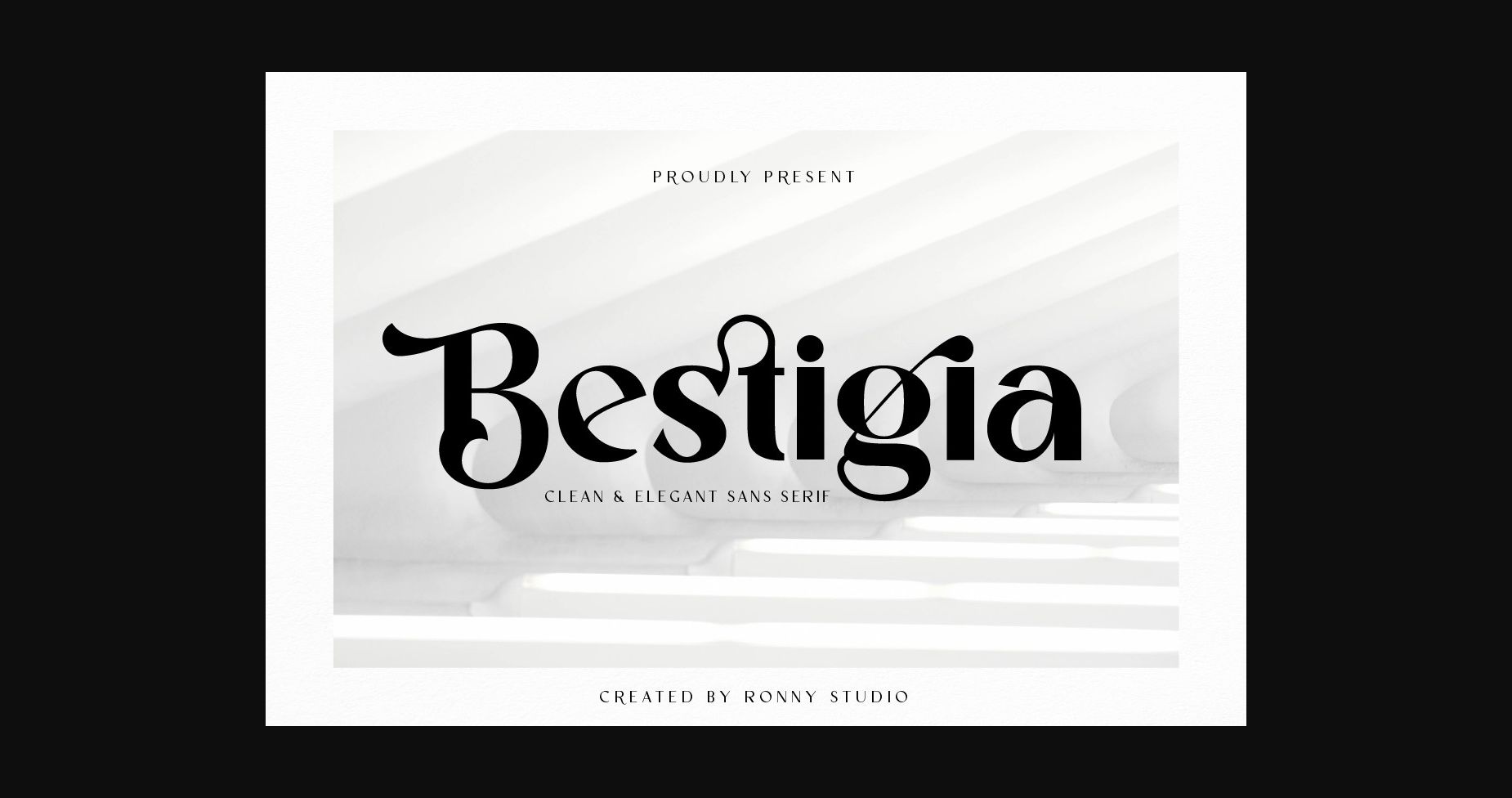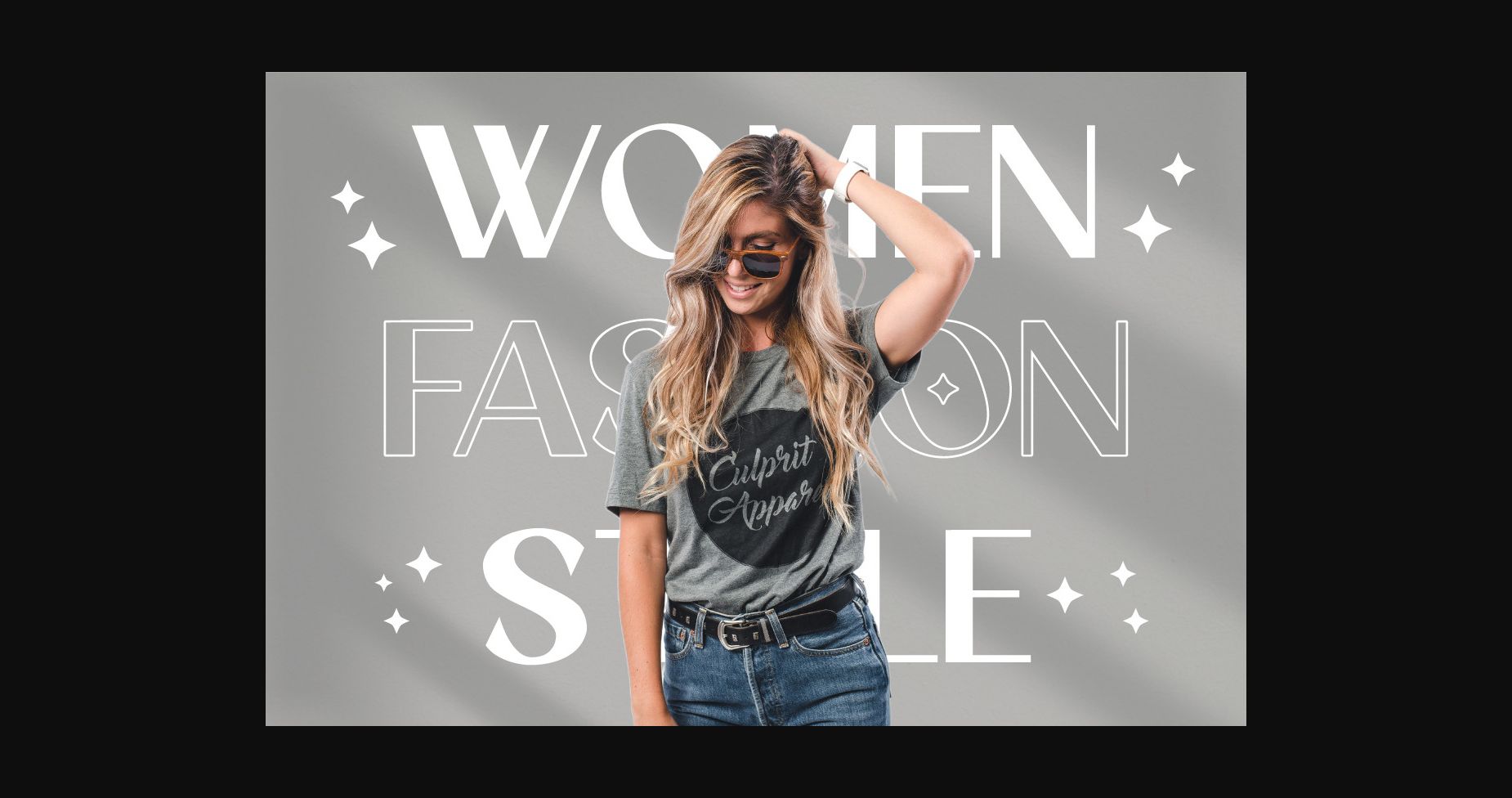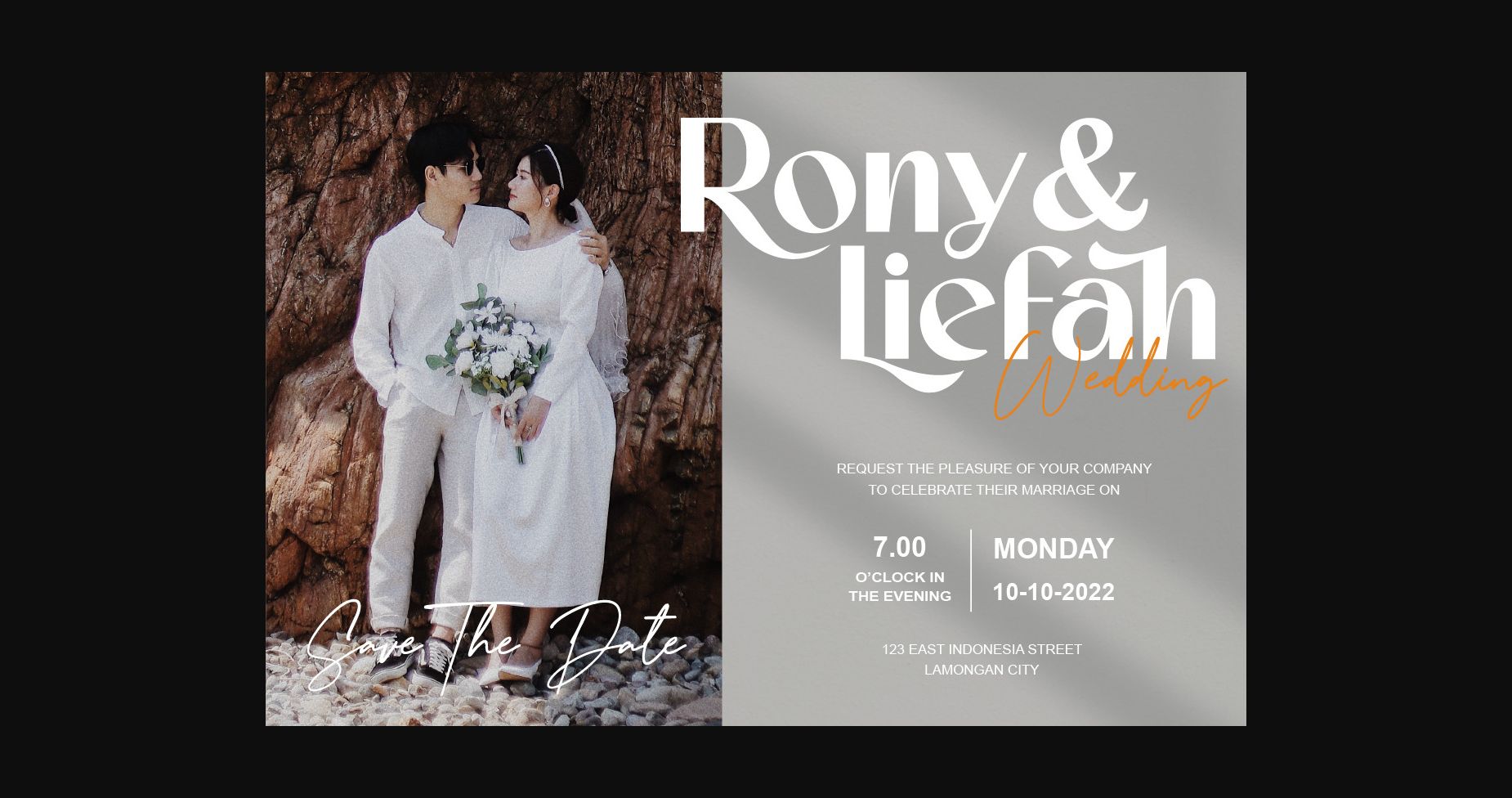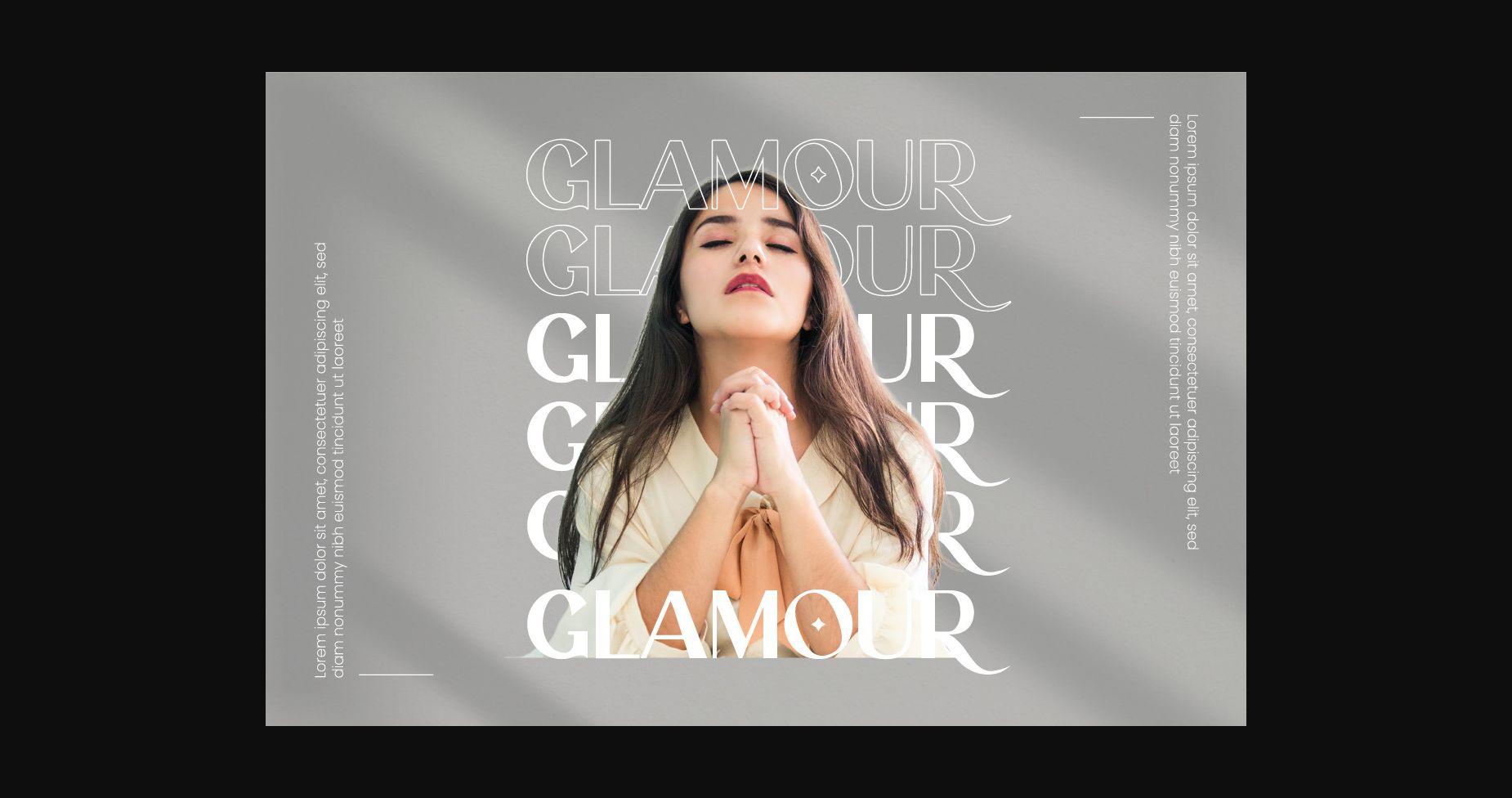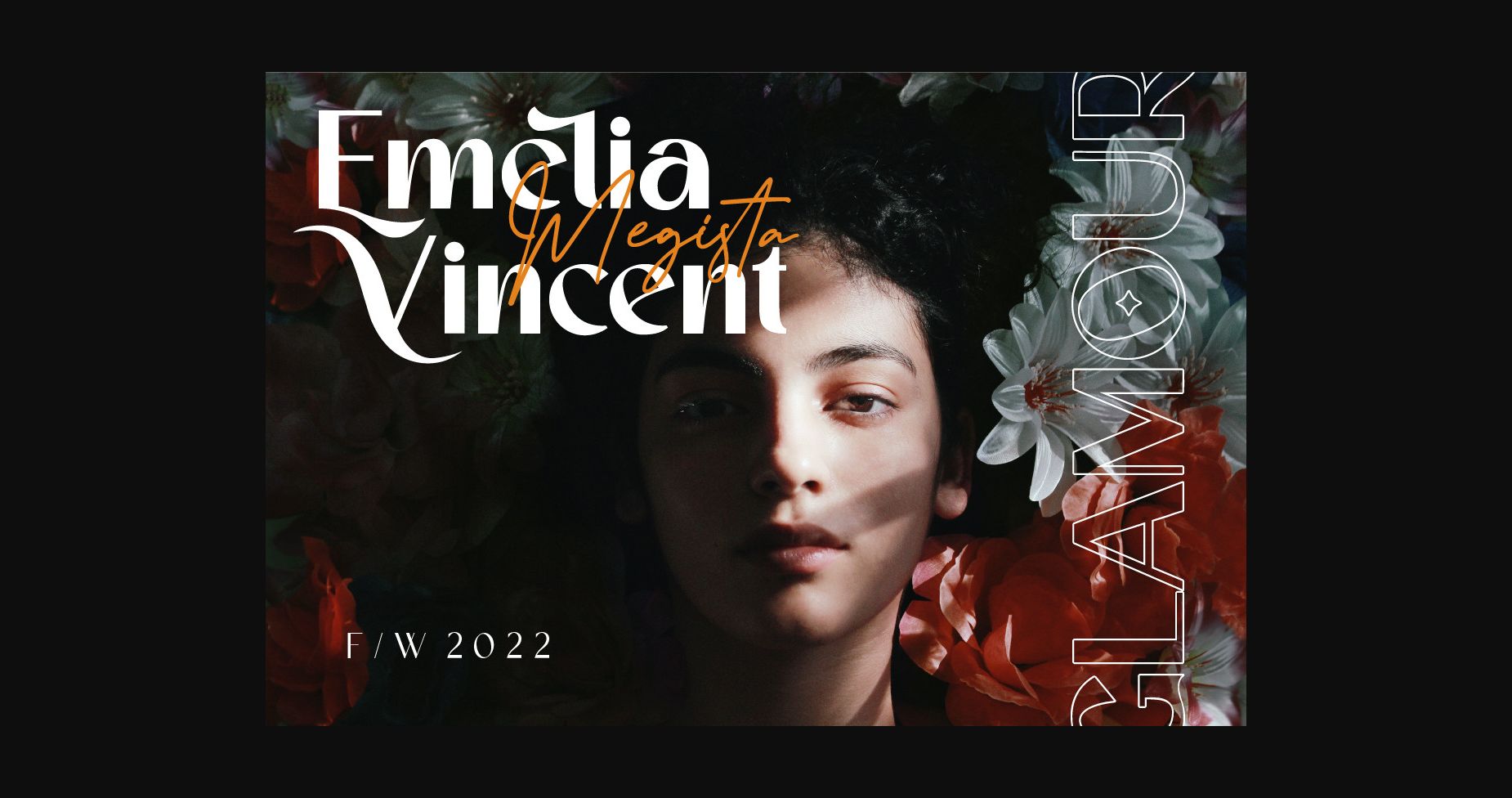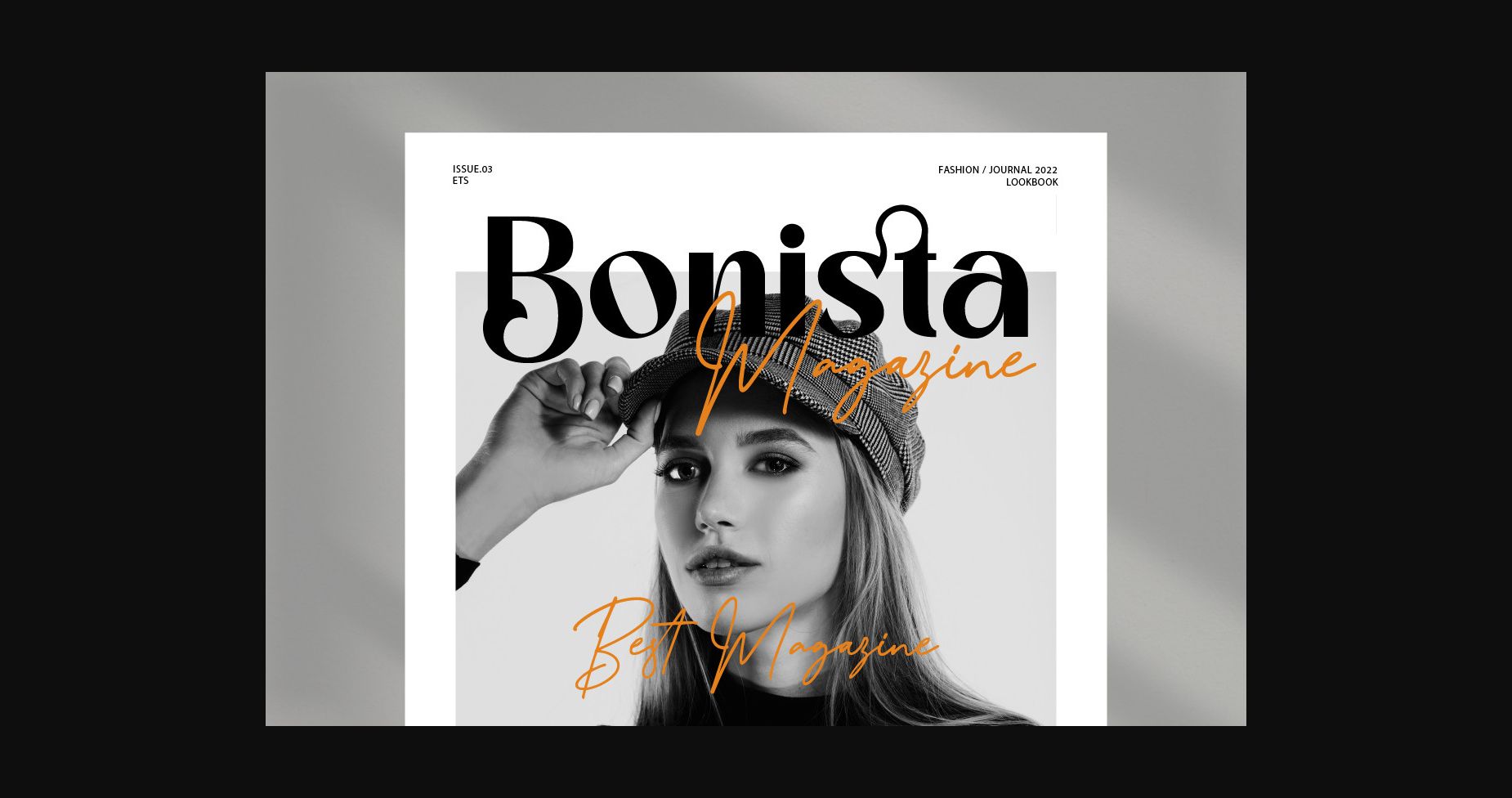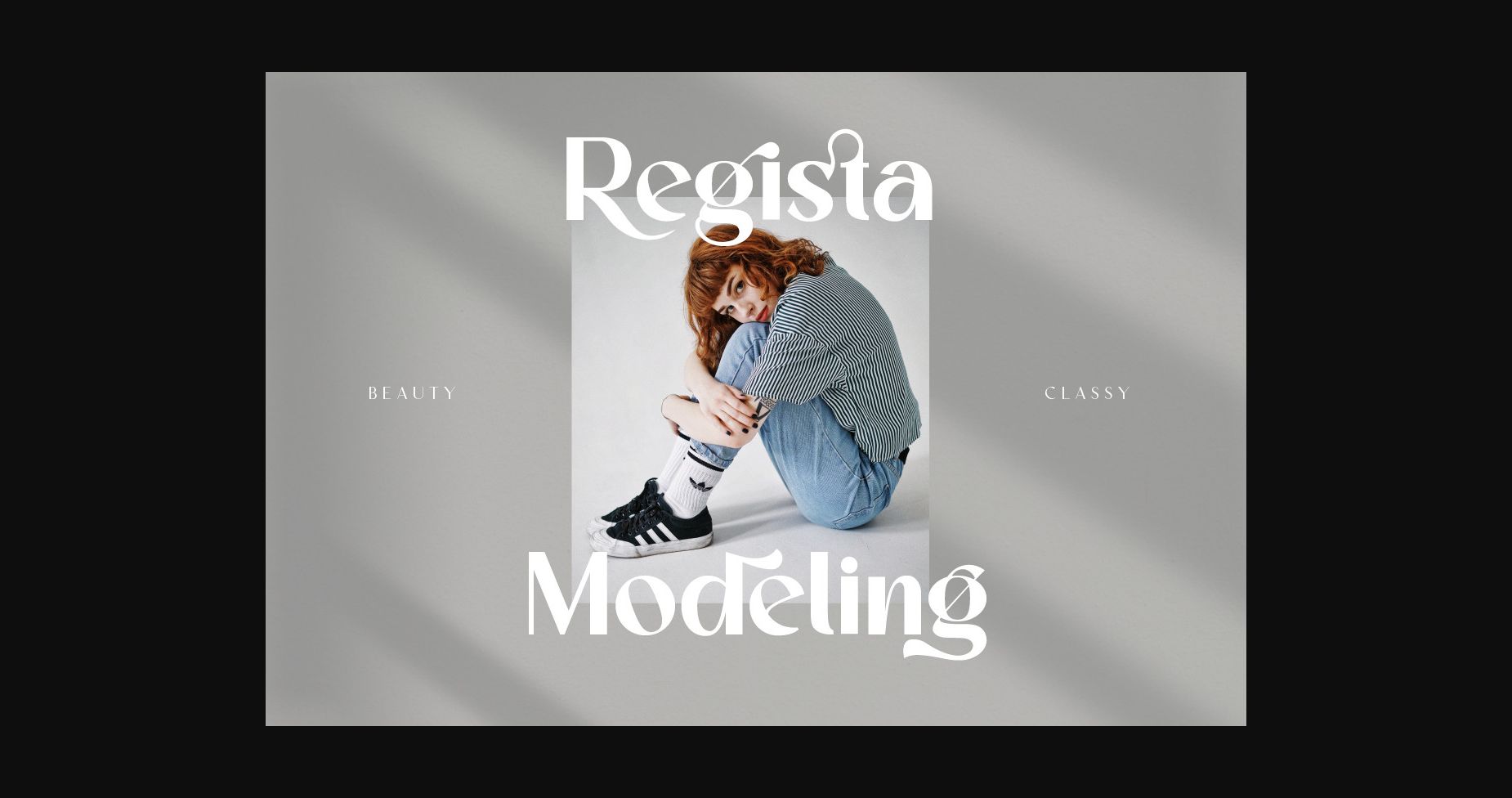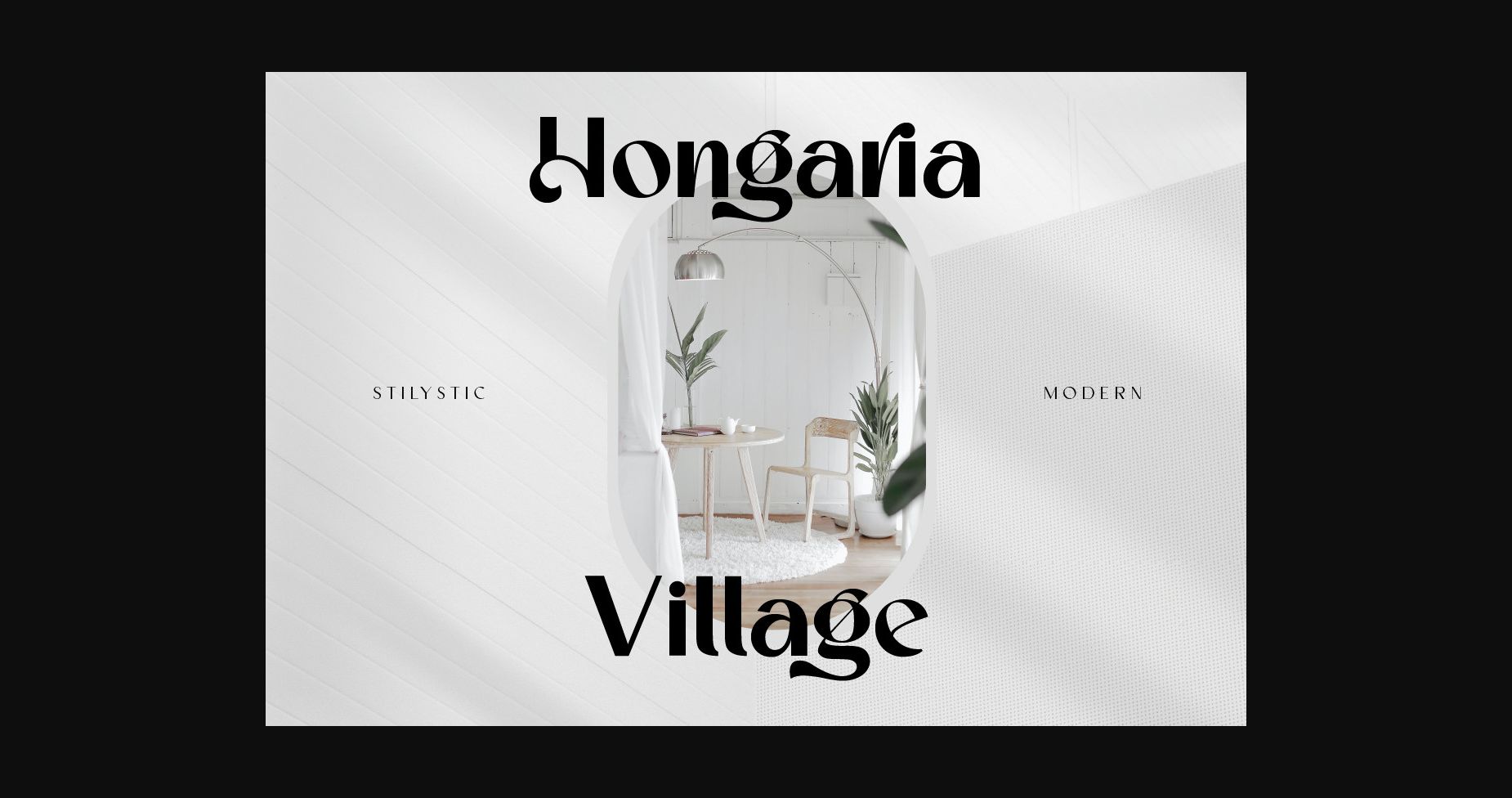
Bestigia Font
About Bestigia Font
Bestigia is an elegant and chic sans serif font. This font is impressive and features a clean yet assertive and fashionable vibe. Bestigia is PUA encoded which means you can access all of the amazing glyphs and ligatures with ease!